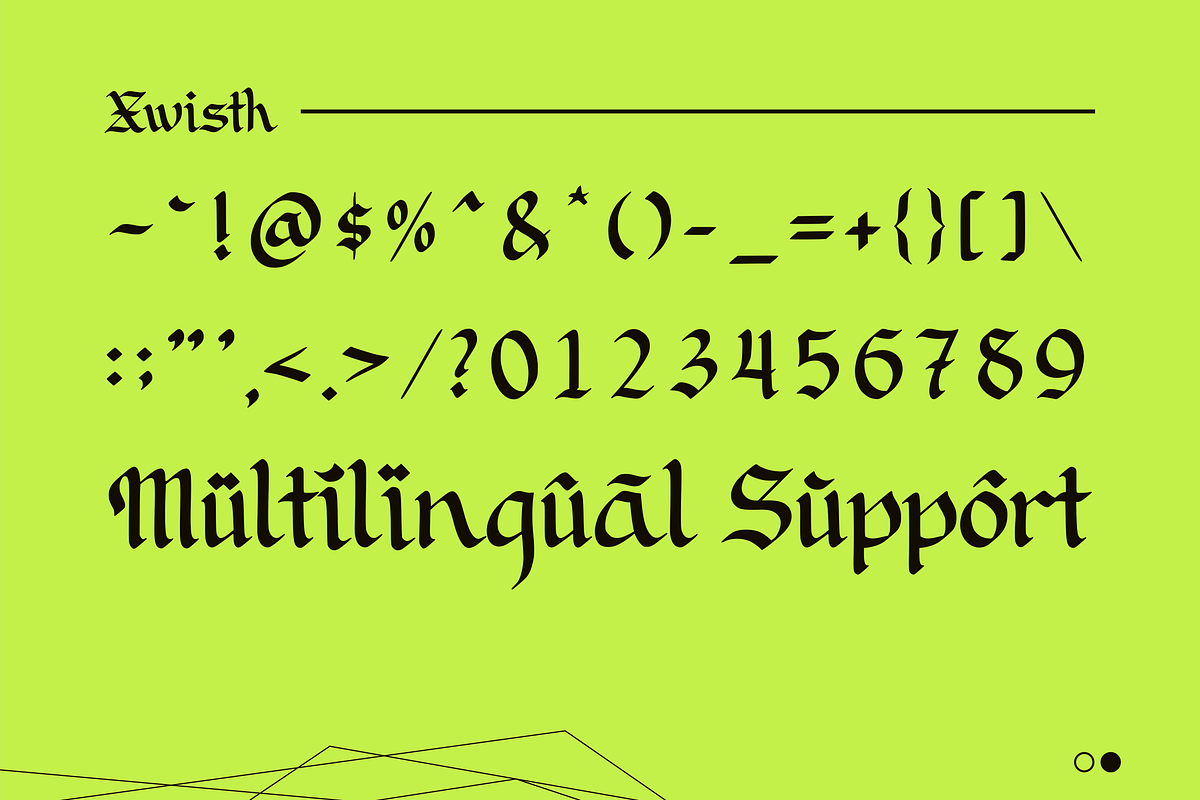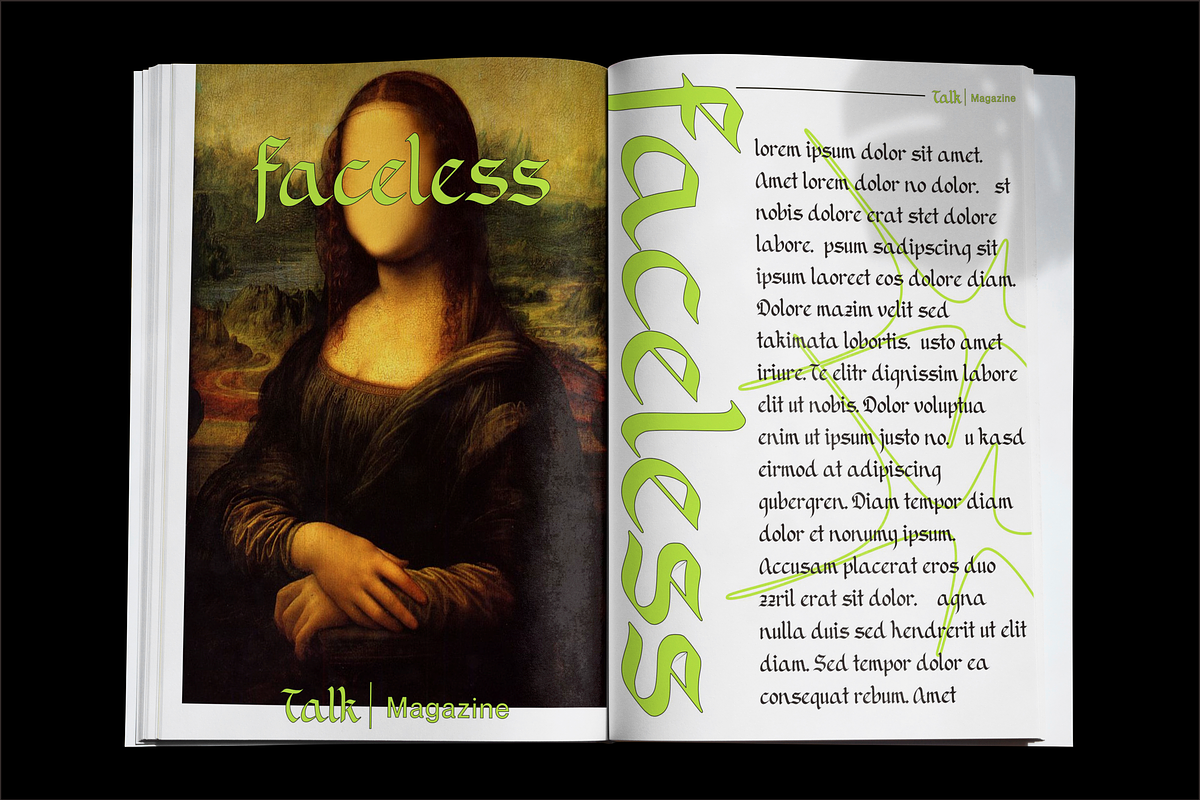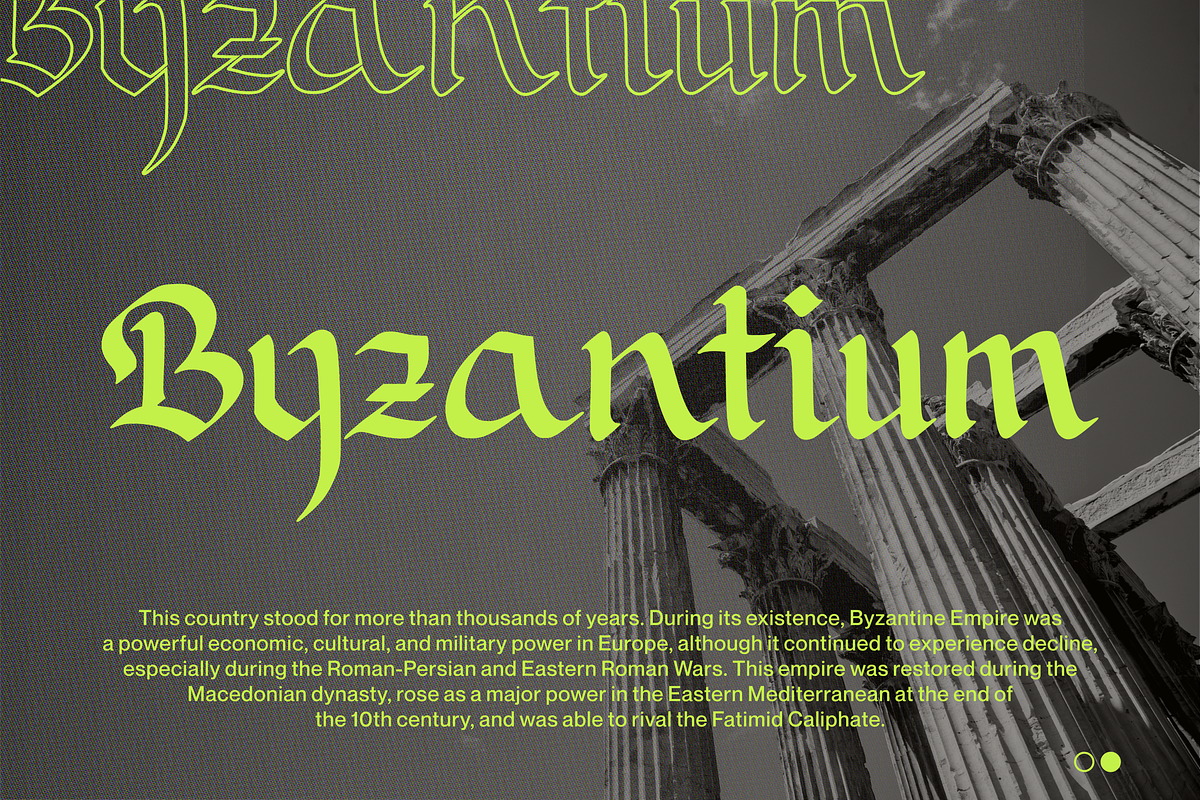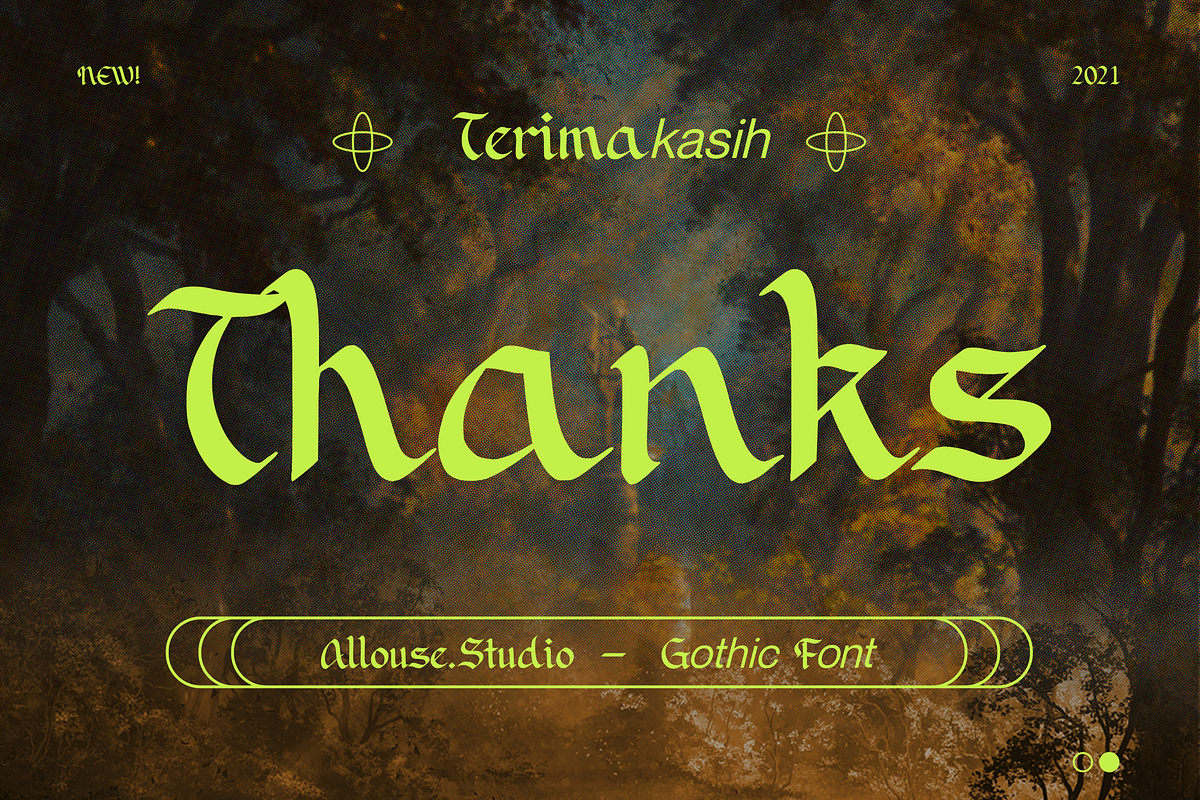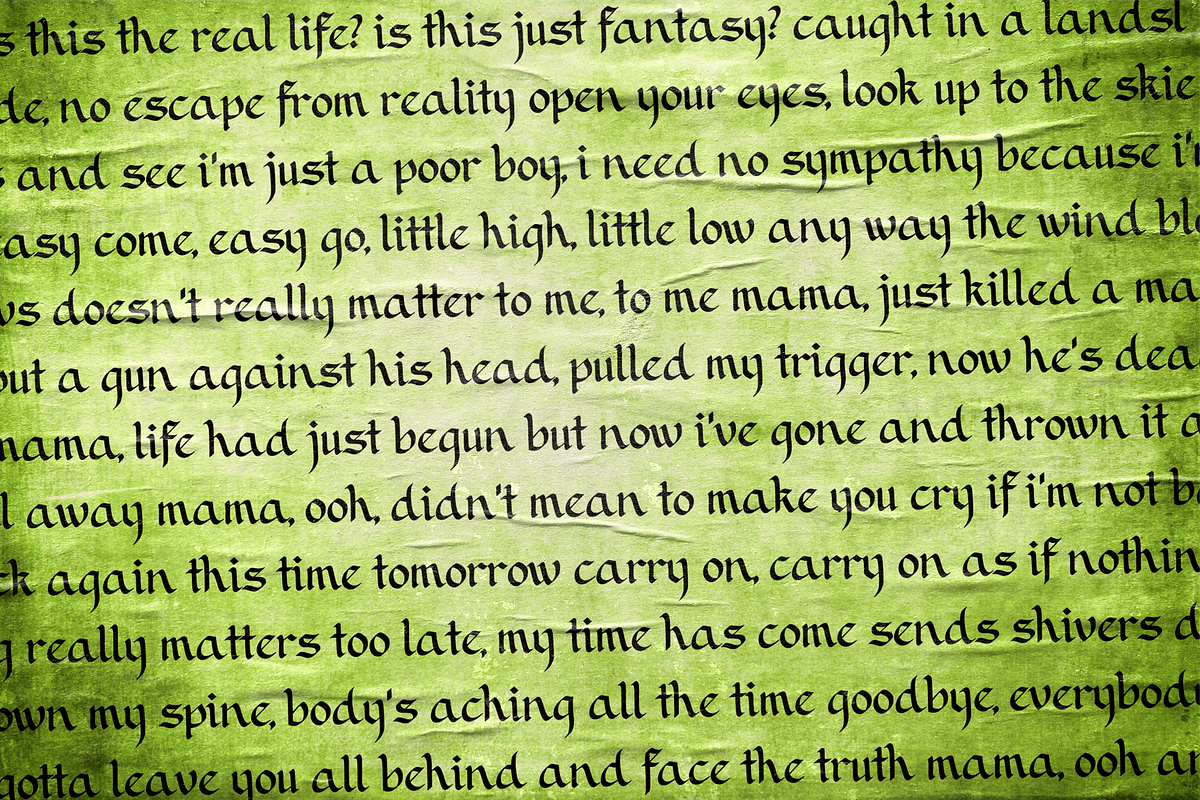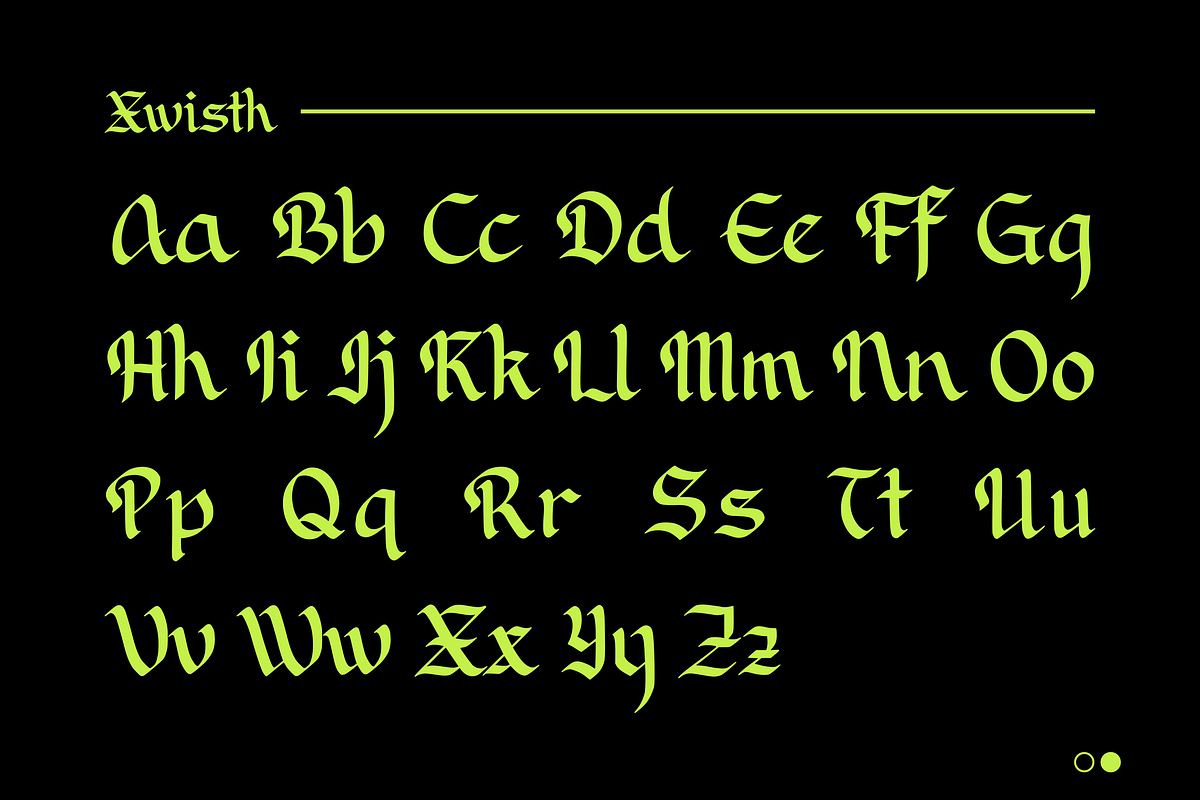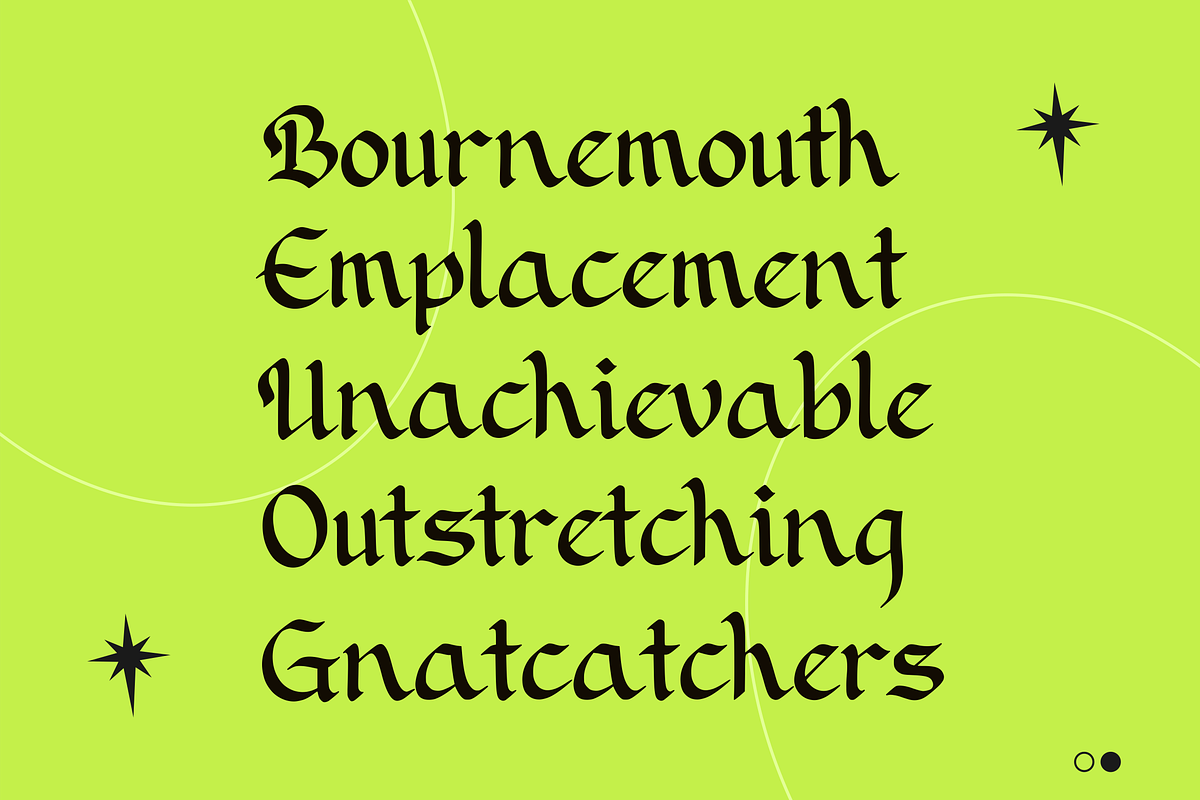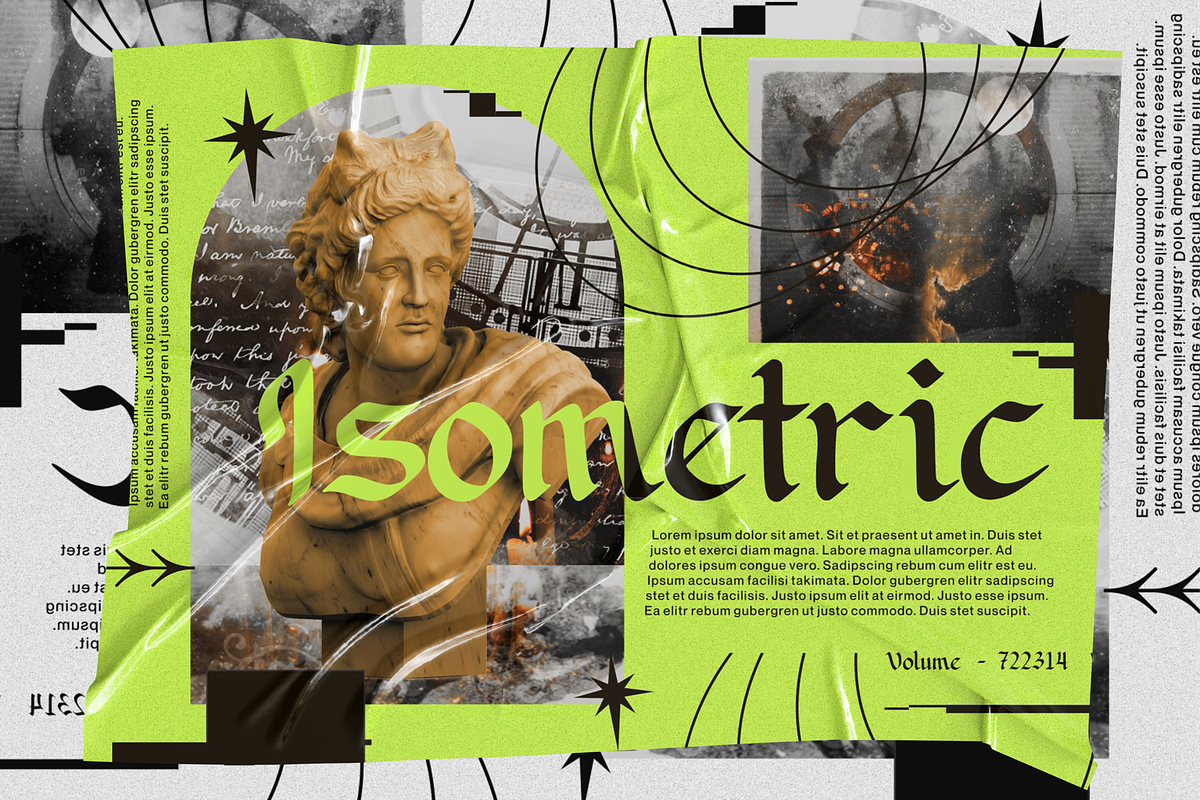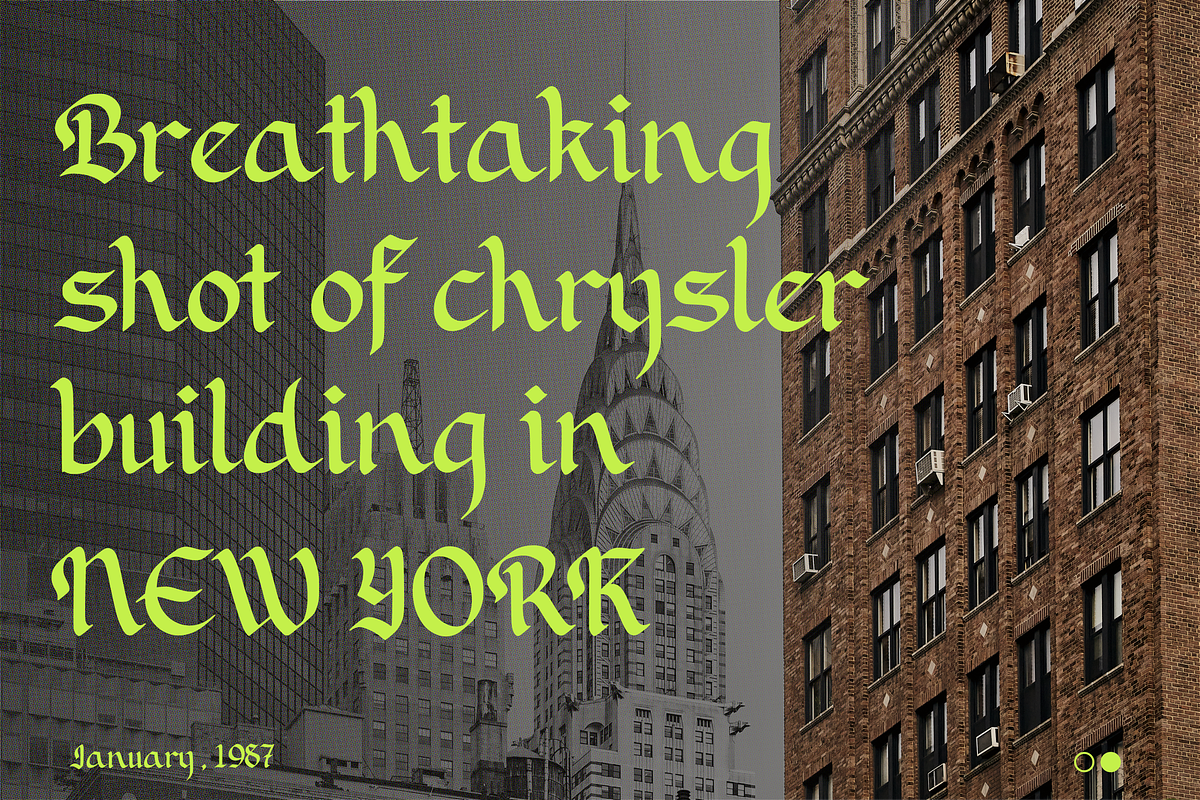
Xwisth Font
Proudly Present, Xwisth.
Xwisth is a Gothic Font.
Xwisth is perfect for product packaging, branding project, megazine, social media, wedding, or just used to express words above the background.